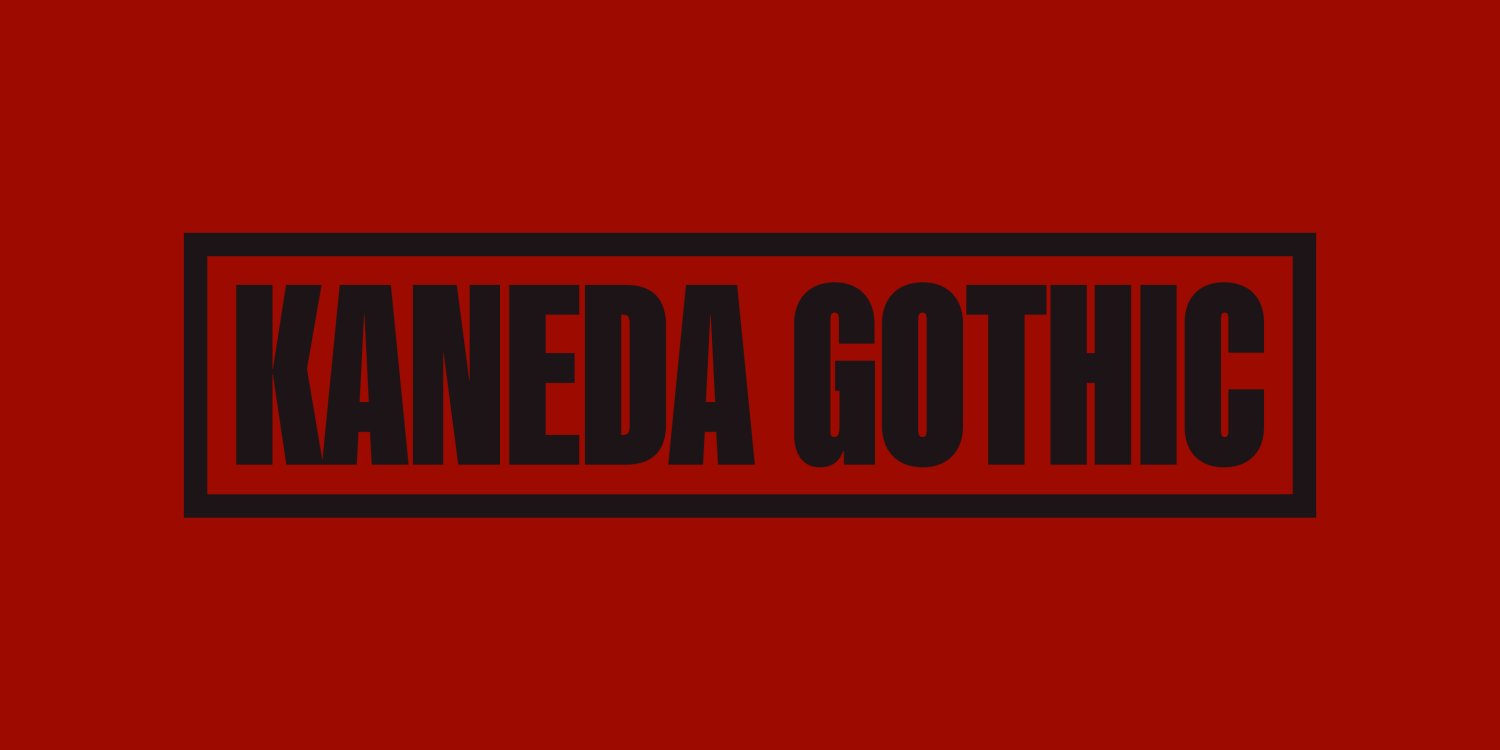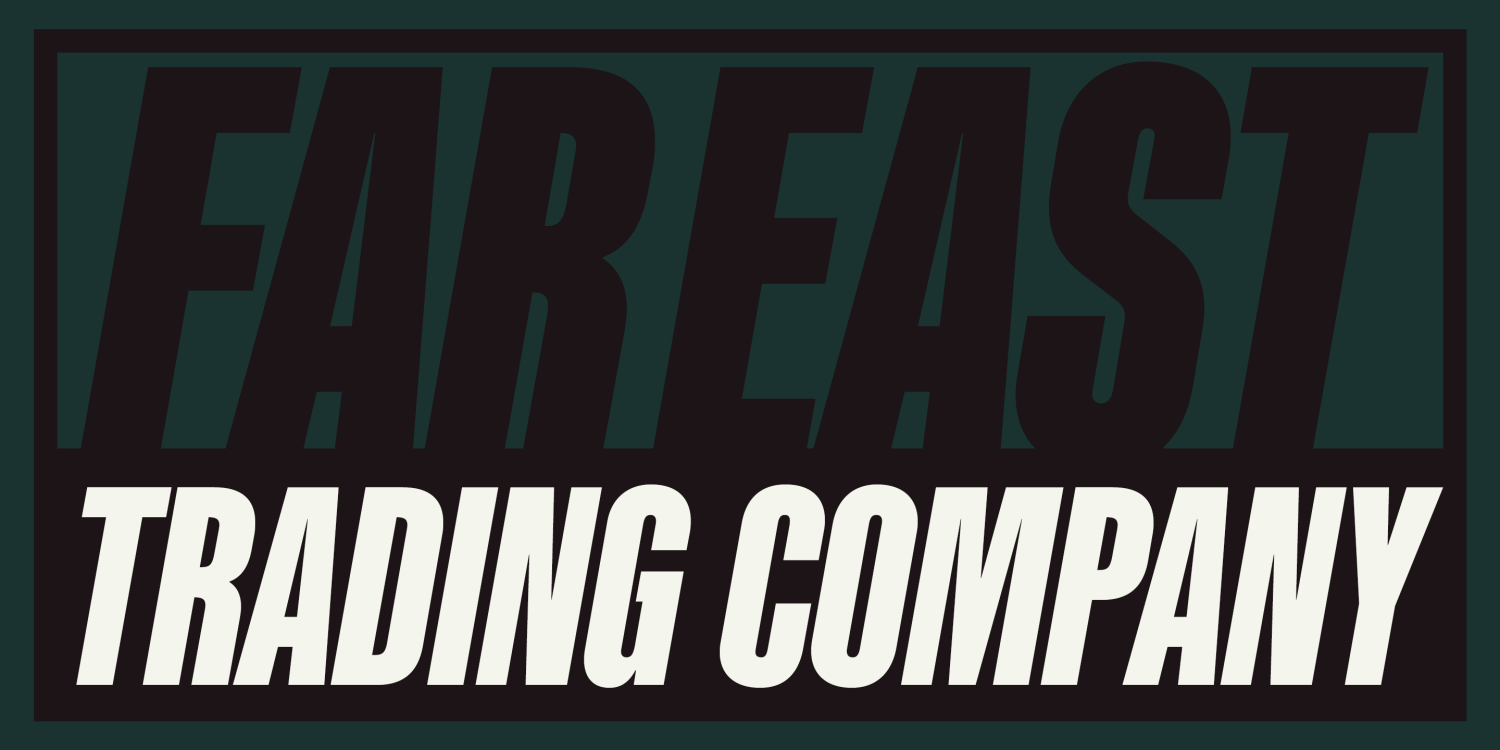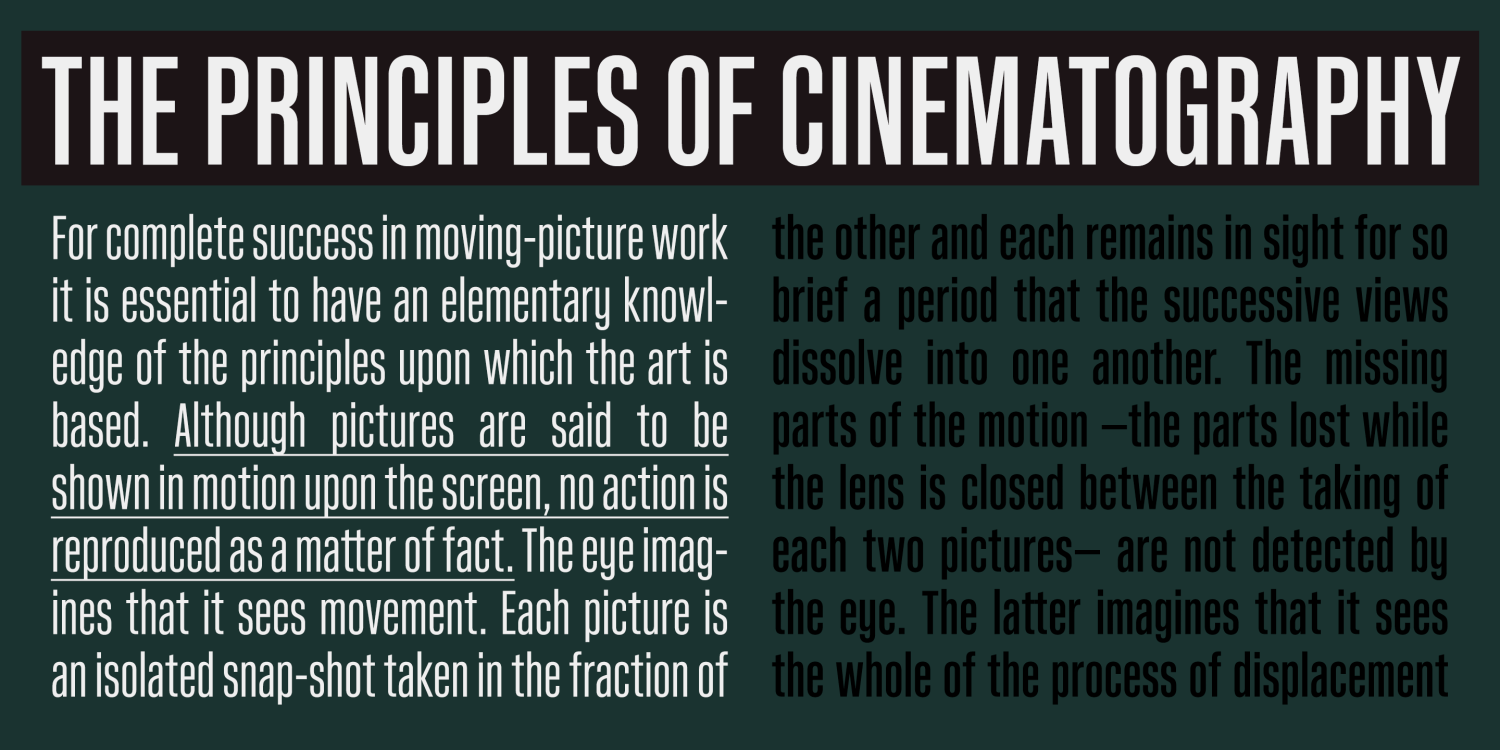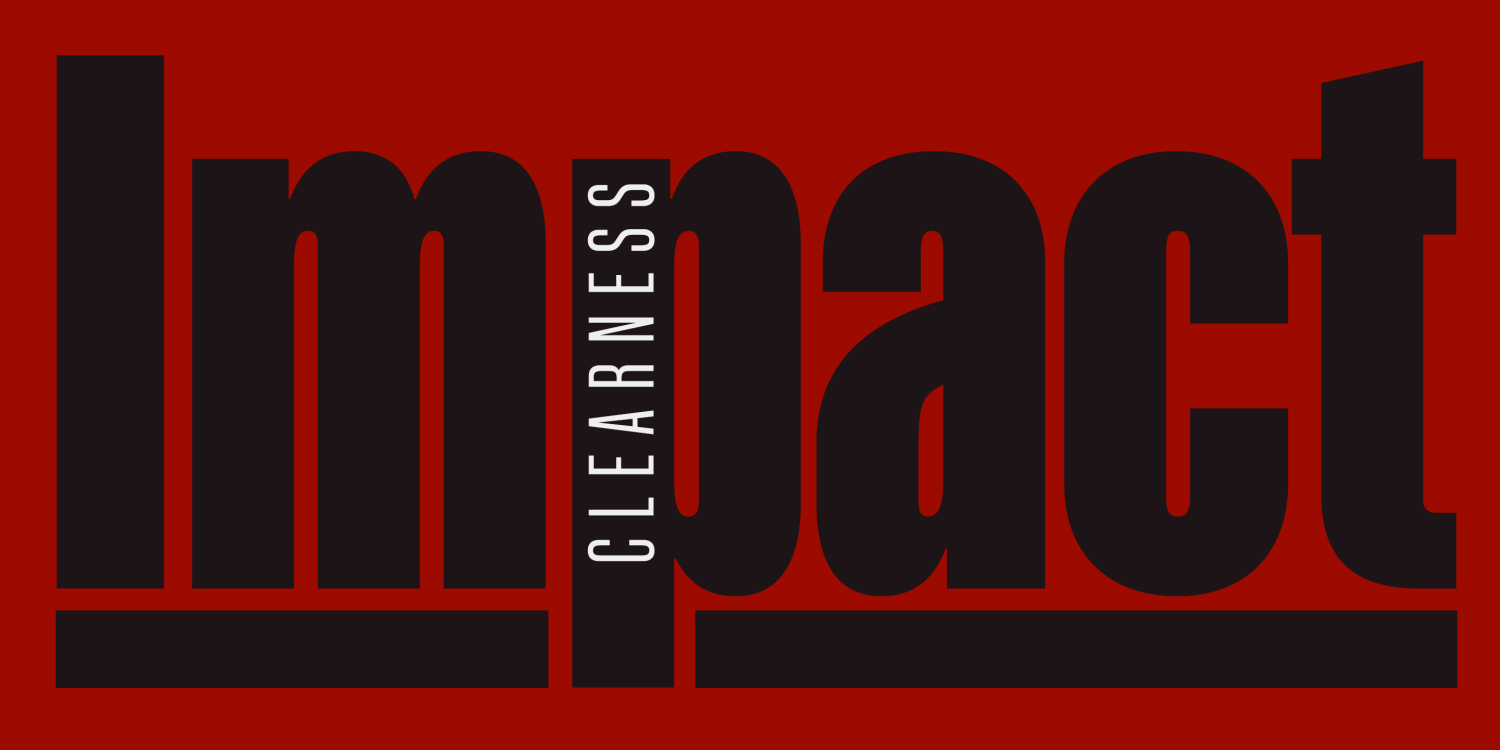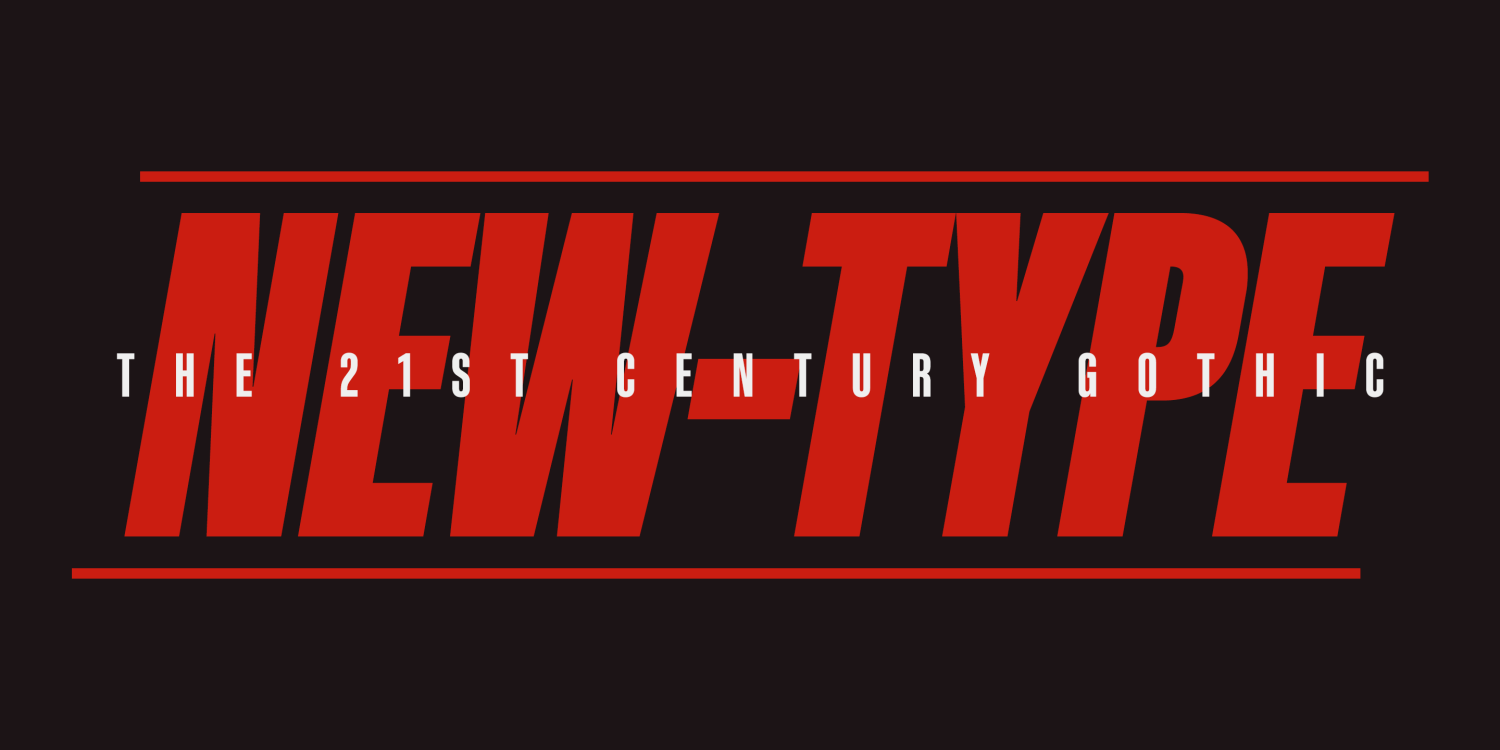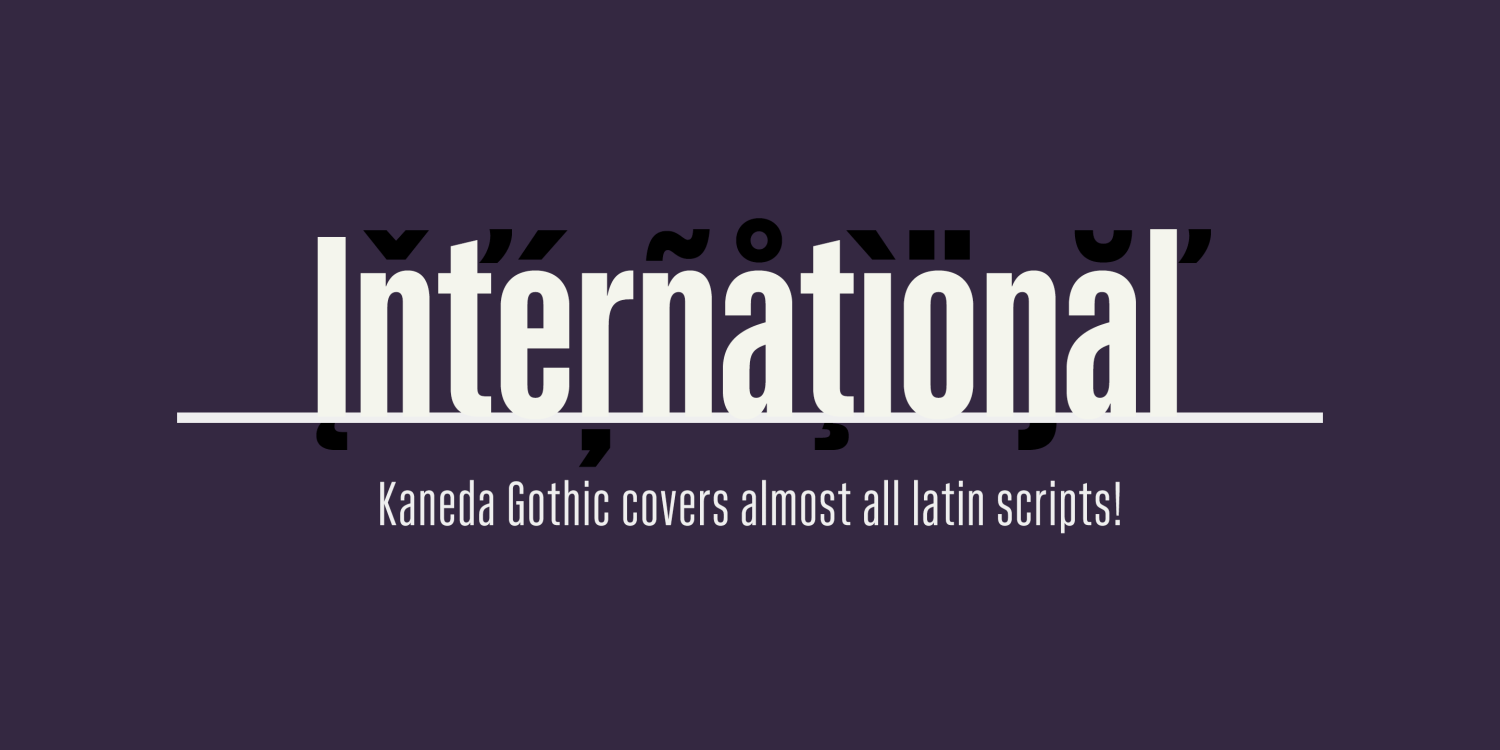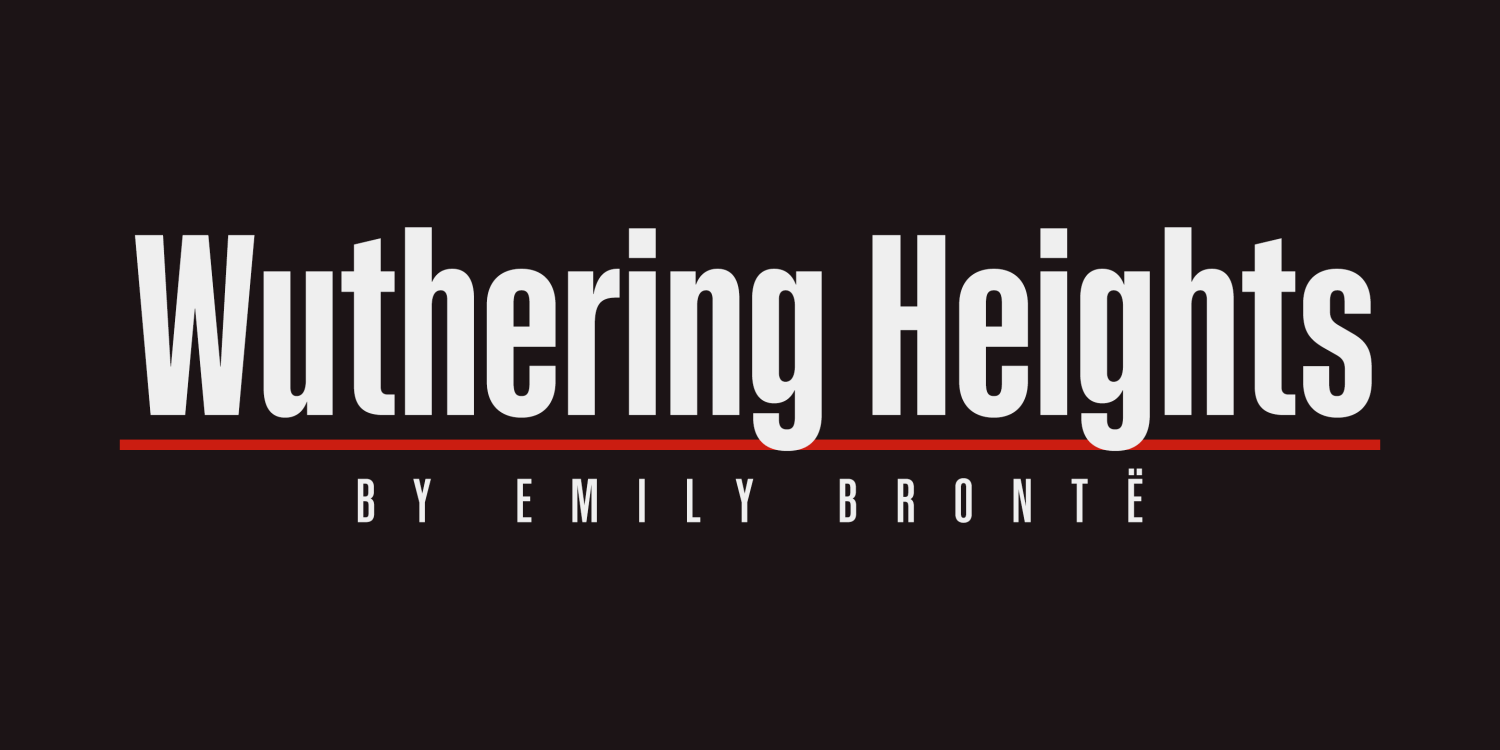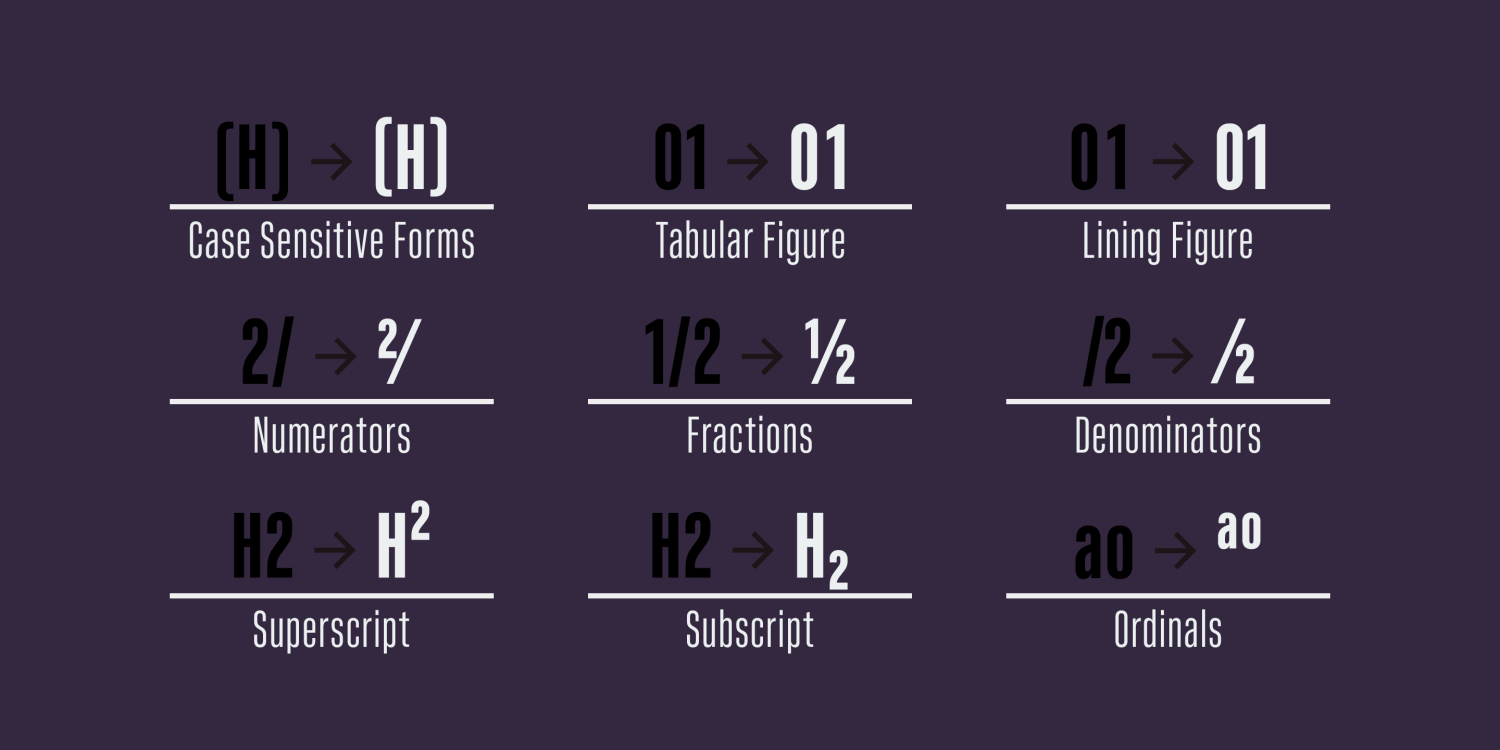
Kaneda Gothic
Font Family by Dharma Type
Kaneda Gothic is a new take on the basic gothic typeface, designed to exist in the space between contrasts—both philosophically and visually.
It explores the tension between:
1. The futuristic visions of the 1980s–90s and the realities of life in the 2010s–20s.
2. The industrial, scientific progress we’ve achieved and our emotional, imaginative needs.
3. The rapid evolution of design trends and the timeless functionality rooted in human history.
Technically, Kaneda Gothic is based on geometric “gaspipe” letterforms, often associated with woodtype-era gothics.
However, its design is refined for the present: featuring sharply defined curves and lines that deliver impact and clarity for today’s visual landscape.
This makes Kaneda Gothic ideal for logos, movie titles, headlines, and captions—anywhere strong, clear, and modern typography is needed.
The family includes seven weights with matching italics and supports nearly all Latin-based languages.